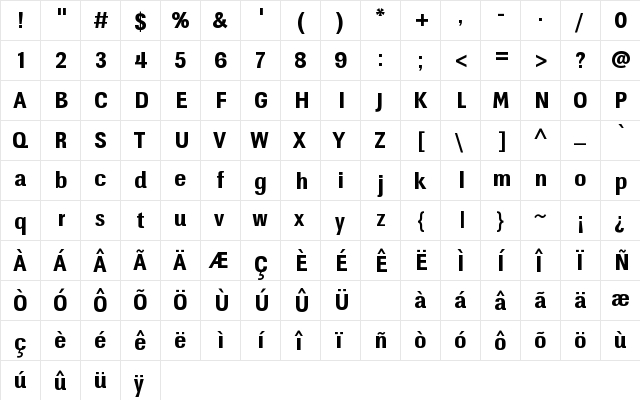
InkberryCondensedBoldHMK Regular
Design Context for InkberryCondensedBoldHMK Typeface
InkberryCondensedBoldHMK offers clean, dependable letterforms without strong stylistic allegiance, making it a practical choice for designers who need flexibility. Its bold stroke weight gives it real presence on the page. Its narrow stance lets it pack a punch even in space-constrained designs.